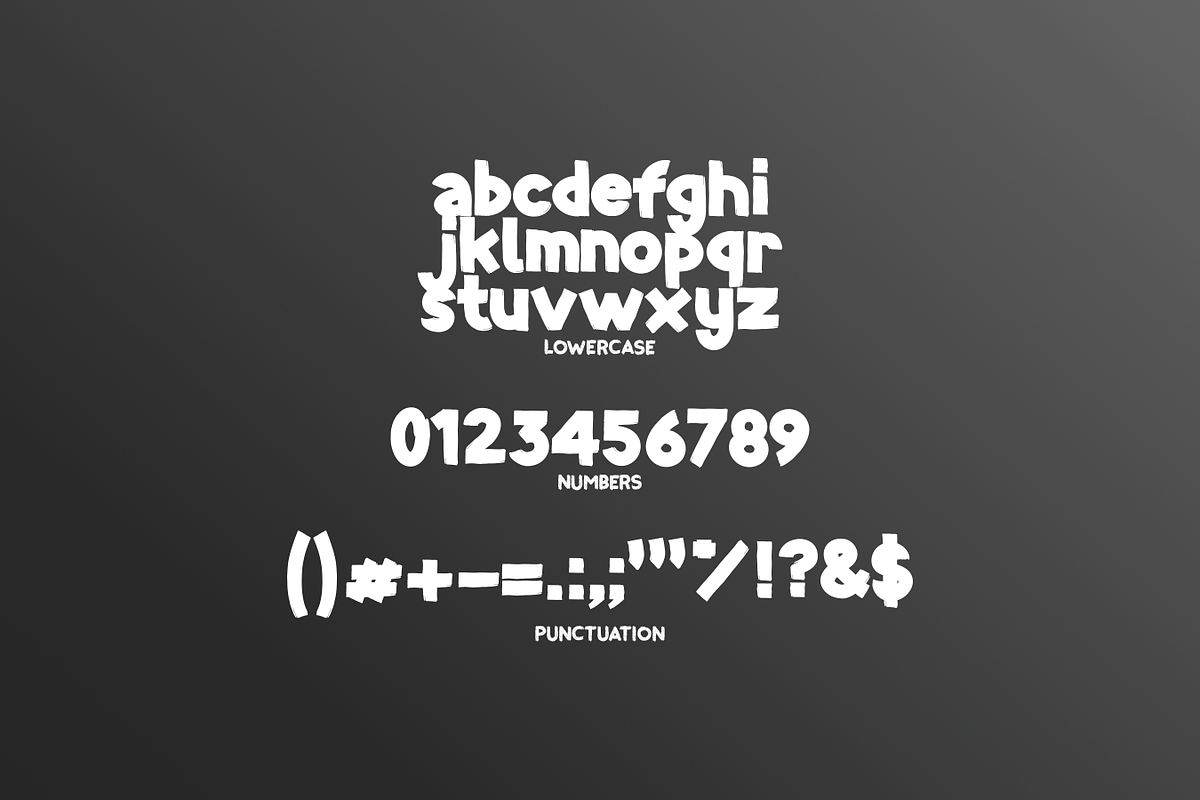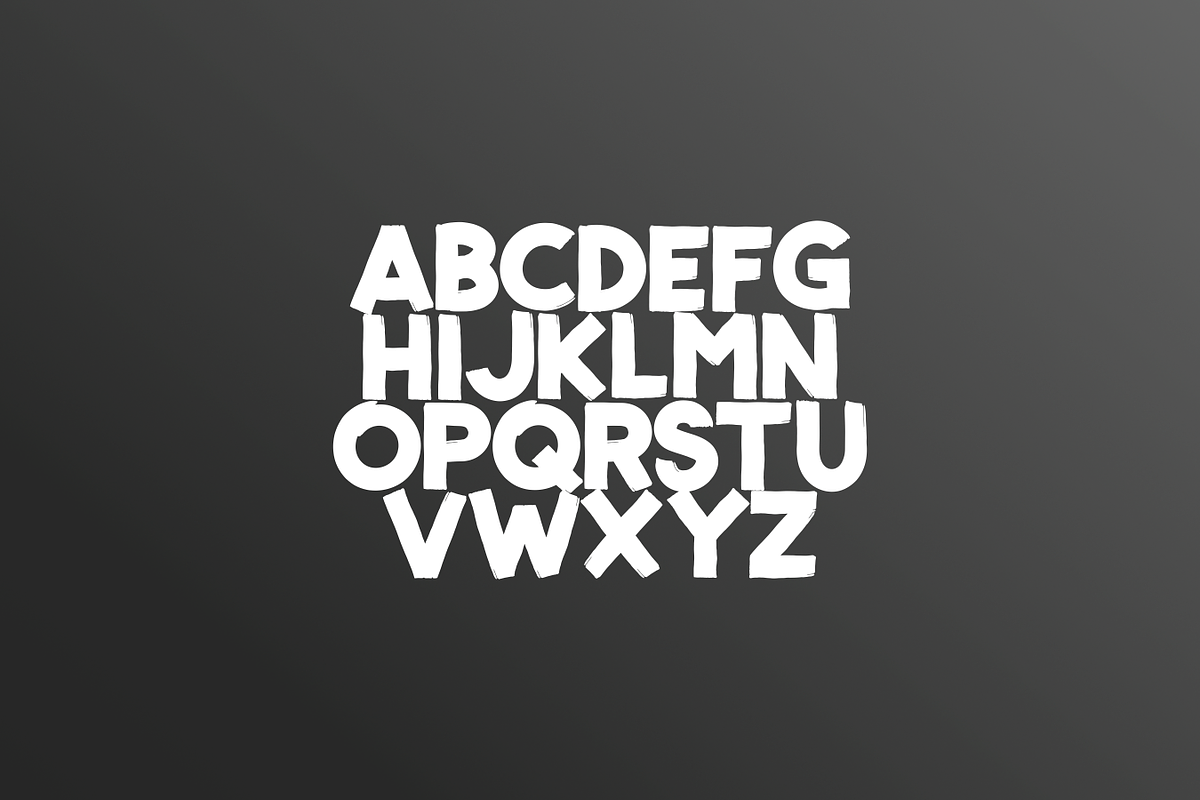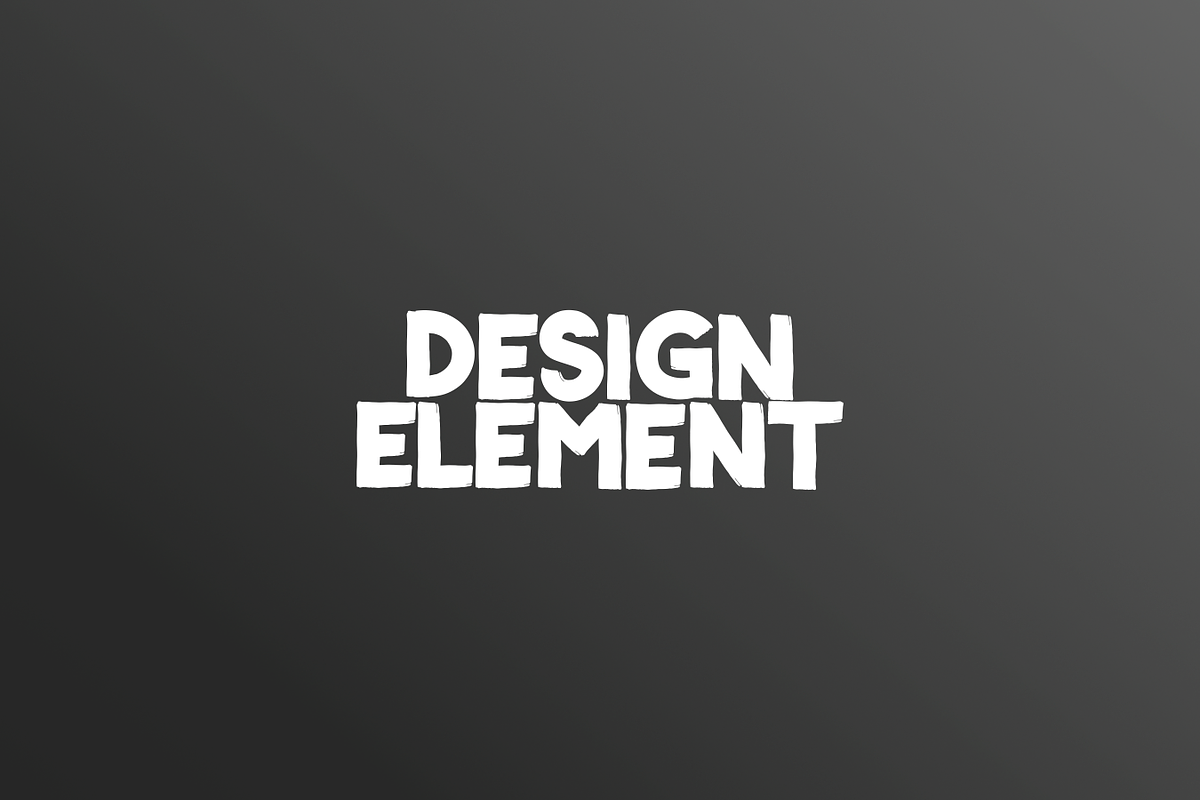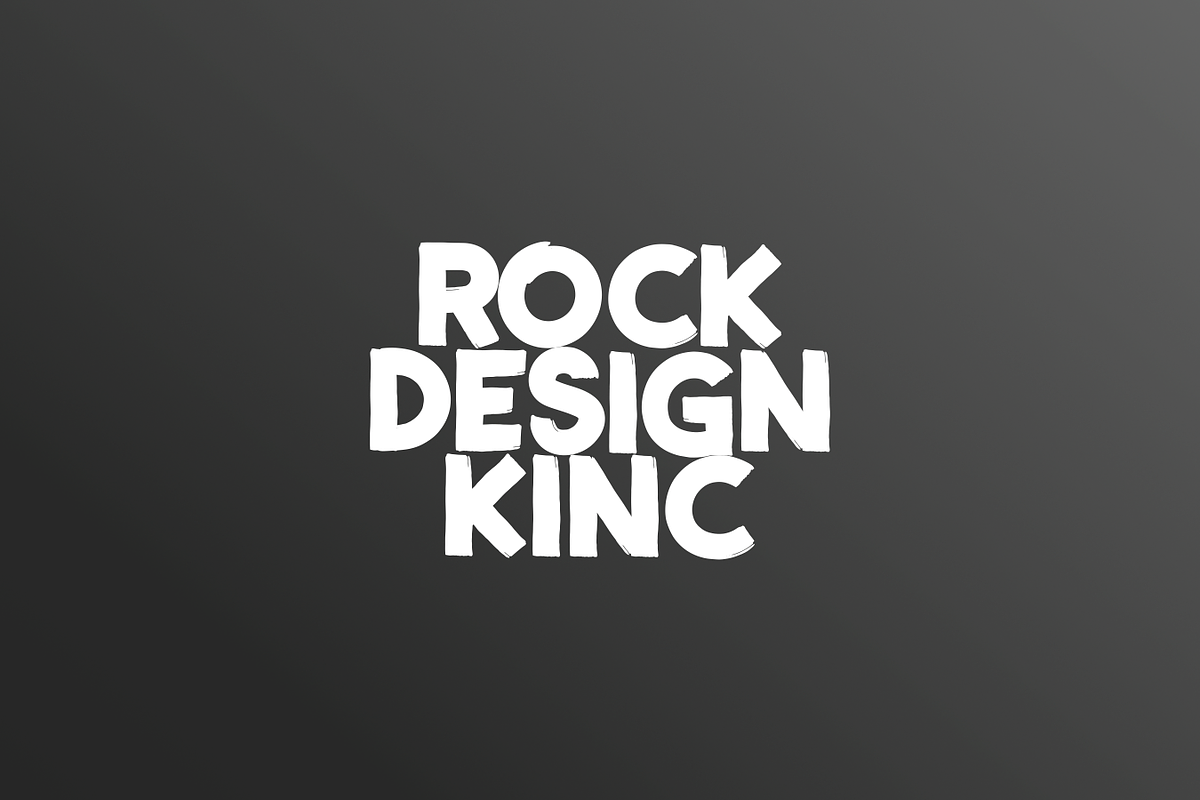
Grunge
Grunge font is a display font in the style of children’s handwriting with a little improvisation in the uppercase mode, and a dynamic touch to the lowercase. This font is perfect for anything related to food, children, children’s illustrations, book titles, website titles, video writing, or anything else you can try to gain experience in your graphic design needs.